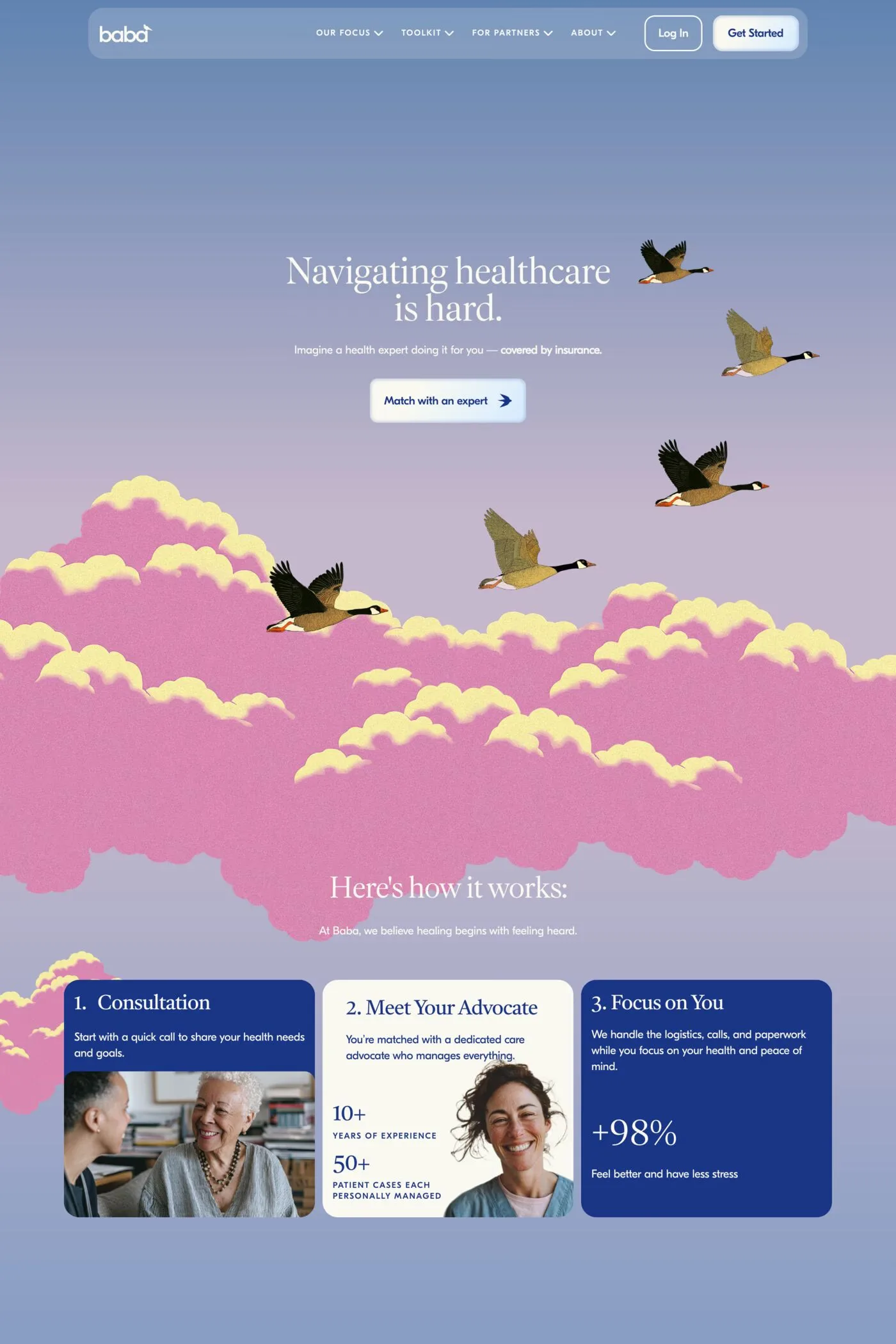
Octave is a revival of an elzevir-style typeface originally designed by Théophile Beaudoire. French Elzevir types, also known as French Old Style types, started in 1846 with Louis Perrin’s cut of the Lyons capitals, a roman titling font....